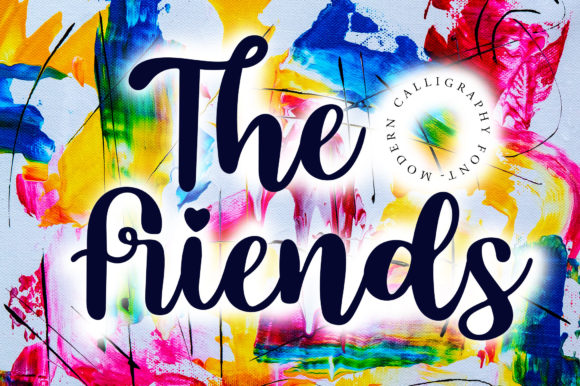
The Friends: A Real-World Design Review
When I first pulled The Friends into my design workspace, I wasn't looking for another generic script. In the world of brand identity, finding a typeface that balances approachability with sophistication is a constant struggle. As a designer who has spent years navigating the delicate line between artistic flair and commercial viability, I needed to know if this premium font could handle the pressure of real client work. My initial impression was immediate: there is a warmth here that feels genuine rather than manufactured. The letters in The Friends possess a distinct visual personality, characterized by fluid strokes that mimic natural handwriting without sacrificing legibility. It creates a mood of connection and intimacy, making it an instant candidate for projects where human touch is paramount.
First Impressions and Visual Personality
In the realm of modern typography, many script fonts lean too heavily into decoration, becoming difficult to read or overly fussy. The Friends avoids this trap. It sits comfortably within the Script Amp category, offering a robust set of characters that feel cohesive and intentional. The curves are confident, not timid, and the varying stroke widths give it a dynamic energy. When I zoomed in on the individual glyphs, I noticed the subtle irregularities that prevent it from feeling robotic. This is crucial for logo design and packaging design, where a mechanical look can distance the audience from the brand message. The typeface exudes a sense of reliability and friendliness, which is exactly what small business owners and crafters need to build trust with their customers.
Performance in Real-Life Work Scenarios
To truly evaluate a commercial font, you have to stress-test it across various mediums. I began by applying The Friends to a mock brand identity project for a boutique coffee shop. On the packaging labels, the font performed beautifully. It wrapped around cylindrical shapes without losing its character, maintaining readability even at smaller sizes. For editorial design, such as magazine headers or blog graphics, the font provided a perfect anchor. It draws the eye immediately but doesn't overpower the accompanying body text. I also tested it for social media graphics and digital ads. In these fast-scrolling environments, the unique letterforms of The Friends helped the content stand out against a sea of standard sans-serif headlines.
Beyond digital applications, I explored its potential for physical goods. For printable design assets like invitations and flyers, the font added a layer of elegance that elevates the perceived value of the product. If you are a digital seller creating Canva templates or Cricut projects, this typeface offers a significant advantage. It transforms simple layouts into professional-grade design assets. Whether used for merchandise branding, product tags, or event signage, The Friends maintains its integrity. It works equally well on a sleek website header or a rustic wooden sign, proving its versatility as a display font capable of adapting to diverse aesthetic requirements.
Strategic Usage and Limitations
While The Friends is incredibly versatile, it is not a one-size-fits-all solution. As a professional, I advise using it carefully. This is primarily a handwritten font designed for impact, not for long-form reading. It shines when used for large headlines, short phrases, brand marks, and decorative accents. Attempting to use it for paragraphs of supporting text will likely compromise readability and visual hierarchy. The intricate details of the script can become muddy at very small sizes or in low-resolution contexts. Therefore, reserve it for moments where you want to emphasize emotion, personality, or a specific call to action. Use it for quotes, premium packaging highlights, or key social posts where engagement is the primary goal.
Understanding where to draw the line is essential for maintaining professionalism. Overusing a script can make a brand feel cluttered or amateurish. Instead, let The Friends be the star of the show while keeping the rest of the layout clean. This restraint ensures that the font continues to command attention and reinforces the brand's message without causing visual fatigue. By limiting its application to high-impact areas, you preserve its novelty and effectiveness over time.
Impact on Readability and Brand Trust
The relationship between typography and audience trust is often underestimated. A well-chosen font can communicate quality before a single word is read. The Friends positively influences brand consistency by providing a distinct voice. Its organic flow suggests authenticity, which is vital for brands trying to connect on a personal level. In terms of recognition, the unique ligatures and flourishes create a memorable visual signature. However, readability remains a priority. I found that the open counters and clear distinction between similar characters, like 'a' and 'o', ensure that the message is communicated clearly even at a glance. This balance between style and function is what separates a trendy creative font from a timeless tool for designers.
Practical Designer Notes and Pairing Strategies
Before committing to The Friends for any client work, I recommend a rigorous testing process. Start by viewing the font in black and white to assess its structural integrity without the distraction of color. Check how it holds up at small sizes; if the details vanish, it may not be suitable for fine print. Always test the typeface on real mockups—place it on a coffee cup, a t-shirt, or a mobile screen to see how it interacts with texture and light. Compare the uppercase and lowercase versions to ensure they work harmoniously together. Pay close attention to spacing; sometimes manual kerning adjustments are necessary to achieve the perfect rhythm.
Pairing is another critical aspect. To maximize the impact of The Friends, consider contrasting it with a neutral sans serif font for body copy. This combination creates a modern, balanced look that guides the reader's eye effectively. Alternatively, pairing it with a classic serif font can evoke a sense of tradition and authority, ideal for luxury brands. Avoid pairing it with other script fonts or overly decorative display fonts, as this can lead to visual competition and confusion. Finally, always confirm the commercial licensing before using it in client projects or for sale as a digital product. Ensuring you have the right rights protects both you and your client from legal issues down the road.
Final Verdict for Creators and Business Owners
In conclusion, The Friends is more than just a pretty face; it is a functional asset for anyone serious about visual communication. Whether you are a marketer crafting a campaign, a blogger enhancing your content, or a crafter launching a new line of products, this typeface offers the flexibility and character needed to stand out. It bridges the gap between personal expression and professional polish. By understanding its strengths and limitations, you can leverage The Friends to create designs that resonate deeply with your audience. It is a tool that, when used with intention, can significantly elevate your web design, packaging design, and overall brand presence. For those seeking a premium font that delivers both style and substance, The Friends is a worthy addition to your creative toolkit.